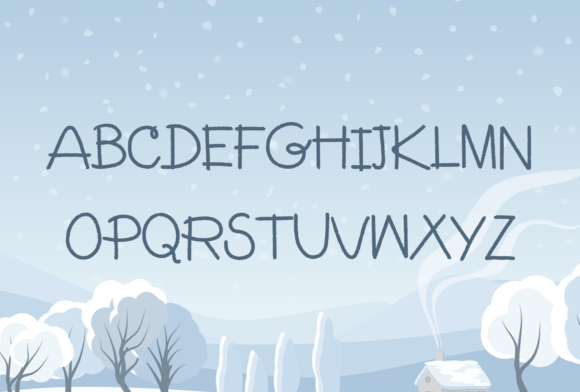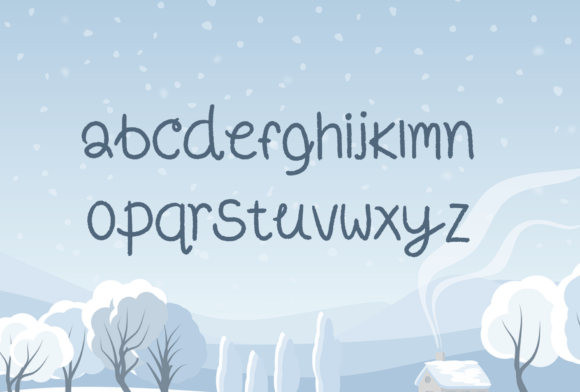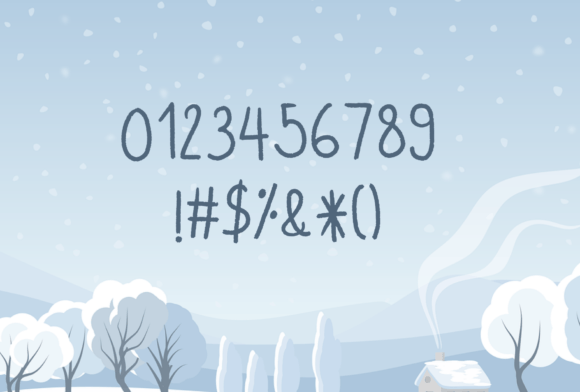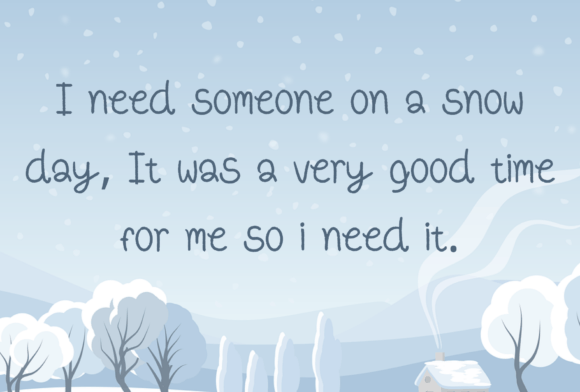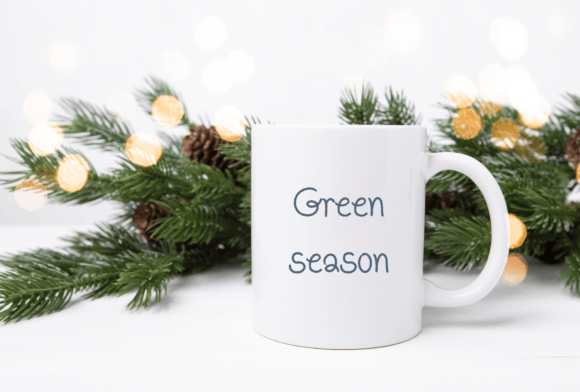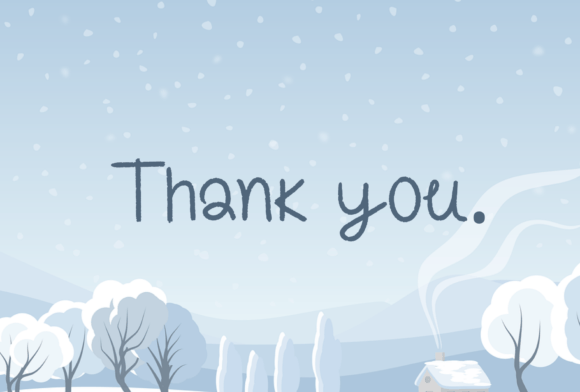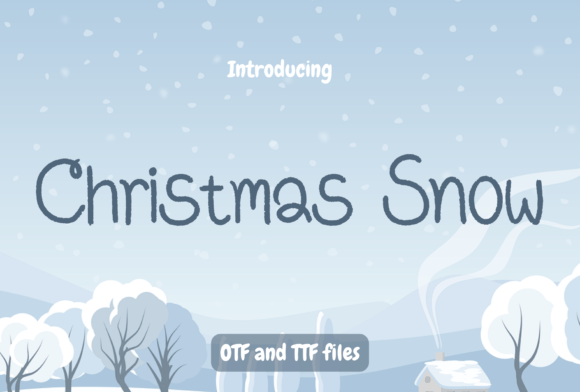
Introducing Christmas Snow Font: A Magical Handwritten Typeface for the Holiday Season
As the holiday season approaches, designers and crafters are on the lookout for the perfect typography to add a touch of festive magic to their projects. Look no further than Christmas Snow font, a super cute handwritten typeface that’s sure to delight. With its simple and versatile style, this charming font is ideal for a wide range of applications, from educational materials to advertising, illustration, and more.
A Festive and Fun Handwritten Typeface
Christmas Snow font is a beautifully crafted handwritten typeface that’s perfect for adding a personal touch to your designs. Its playful and whimsical style is reminiscent of snowflakes gently falling on a winter’s night, making it an ideal choice for holiday-themed projects. Whether you’re creating Christmas cards, decorations, or promotional materials, this font is sure to bring a smile to your audience’s faces.
Simple and Versatile Style
One of the standout features of Christmas Snow font is its simplicity and versatility. The clean lines and rounded edges make it easy to read and pair well with a variety of design styles. This font is perfect for:
- Educational purposes: Create engaging and interactive learning materials, such as worksheets, activity sheets, and educational posters.
- Presentation embellishments: Add a touch of festive flair to your presentations, reports, and proposals.
- Advertising: Create eye-catching holiday promotions, ads, and social media graphics.
- Illustration: Use Christmas Snow font to add a personal touch to your illustrations, comics, and cartoons.
Key Features of Christmas Snow Font
Here are some of the key features that make Christmas Snow font a must-have for designers and crafters:
- Handwritten style: A unique and personal touch that’s perfect for adding a human element to your designs.
- Simple and versatile: Pair well with a variety of design styles and use in a range of applications.
- Easy to read: Clean lines and rounded edges make it easy to read, even at smaller font sizes.
- Festive and fun: Perfect for holiday-themed projects and adding a touch of festive magic to your designs.
Tips for Using Christmas Snow Font
Here are some tips for getting the most out of Christmas Snow font:
- Pair with bold fonts: Create a striking contrast by pairing Christmas Snow font with bold, sans-serif fonts.
- Use in combination with images: Add a personal touch to your images and illustrations with Christmas Snow font.
- Experiment with colors: Try out different color combinations to find the perfect match for your design.
- Use for headings and titles: Add a touch of festive flair to your headings and titles with Christmas Snow font.
Christmas Snow font is a magical handwritten typeface that’s perfect for adding a touch of festive magic to your designs. With its simple and versatile style, this charming font is ideal for a wide range of applications, from educational materials to advertising, illustration, and more. Whether you’re a designer, crafter, or DIY enthusiast, Christmas Snow font is sure to become a favorite in your typography collection.